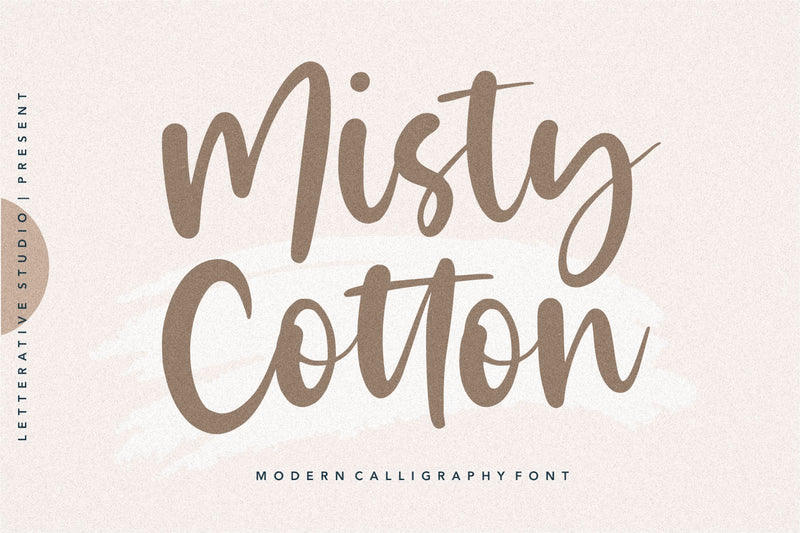
Misty Cotton Modern Calligraphy Font
Introducing by Letterative Studio : Misty Cotton Font
Misty Cotton is a Modern Calligraphy Font
Misty Cloud is a dainty handwritten font. Its distinct and well rounded letters make this font a masterpiece. Fall in love with its incredibly versatile style and use it to create spectacular designs!